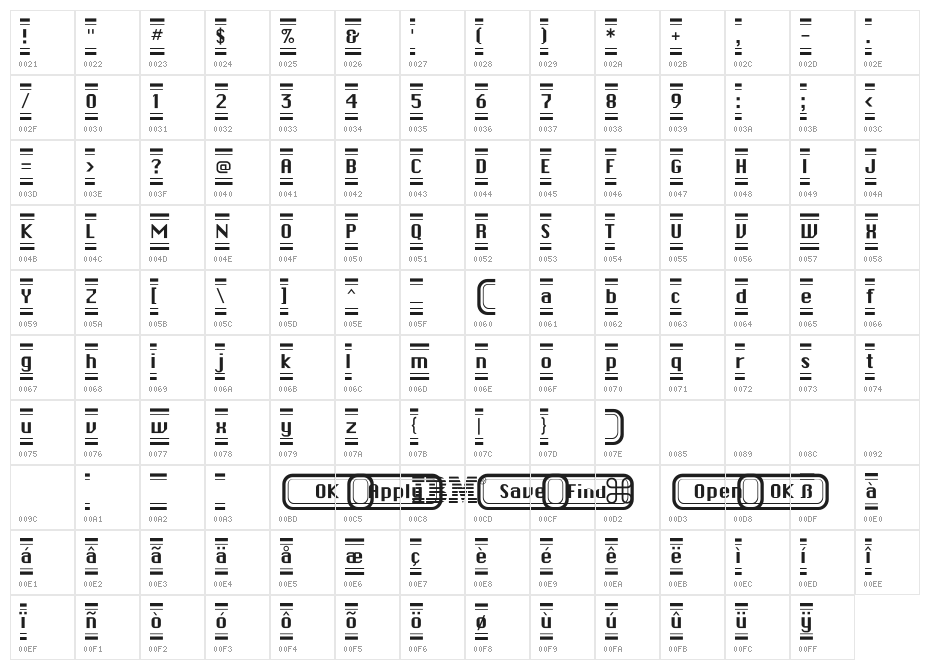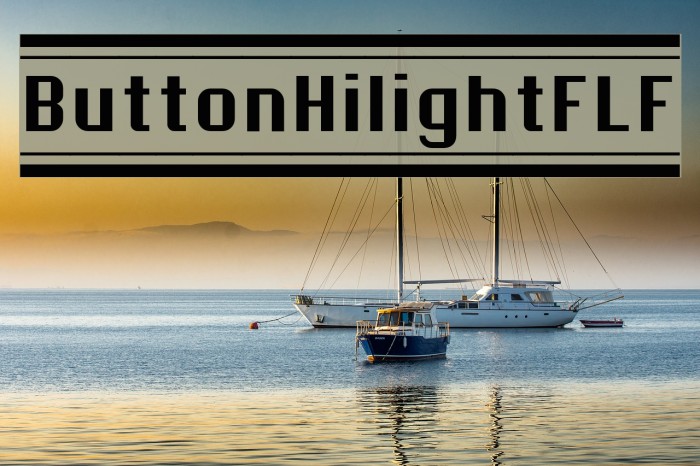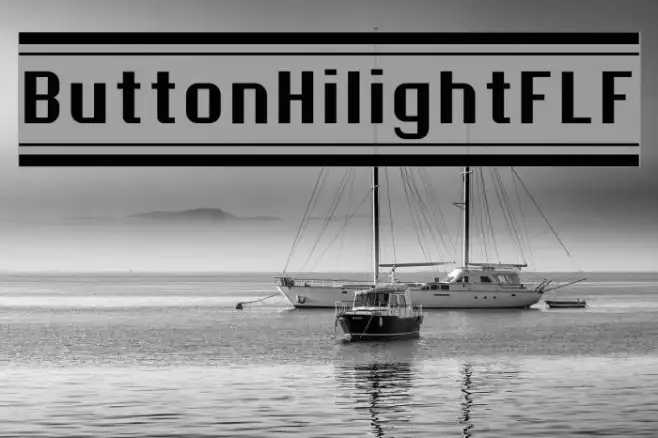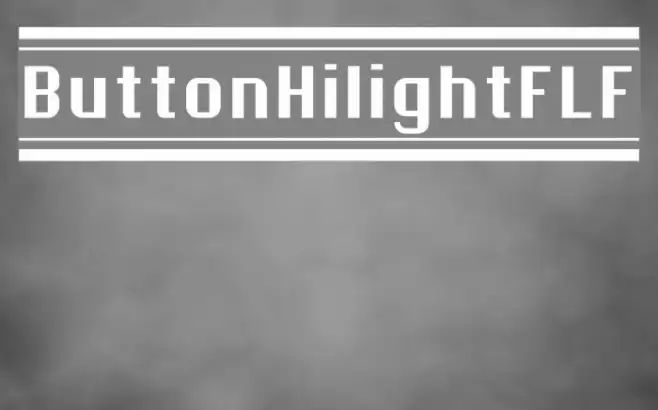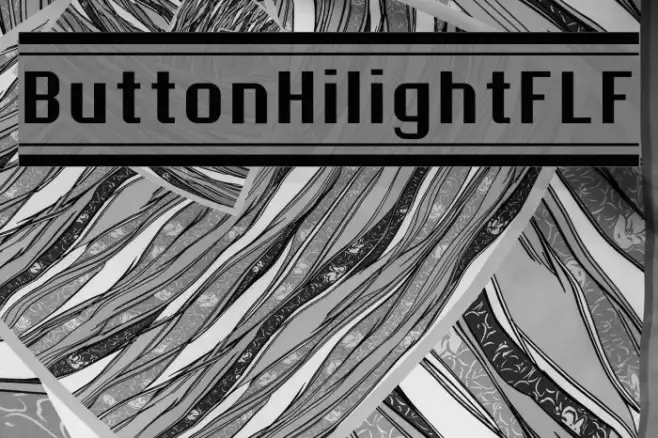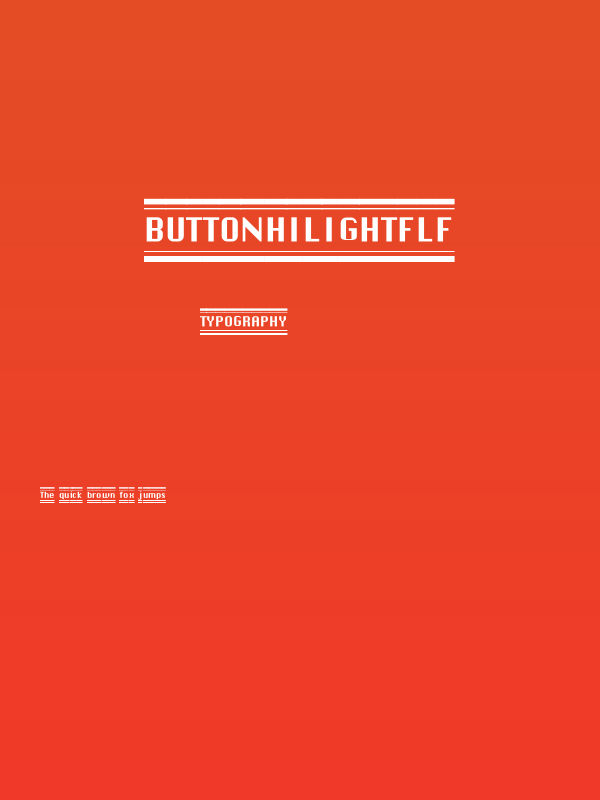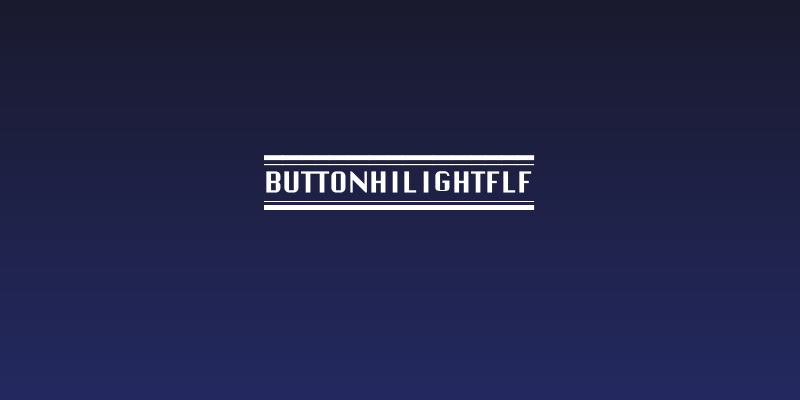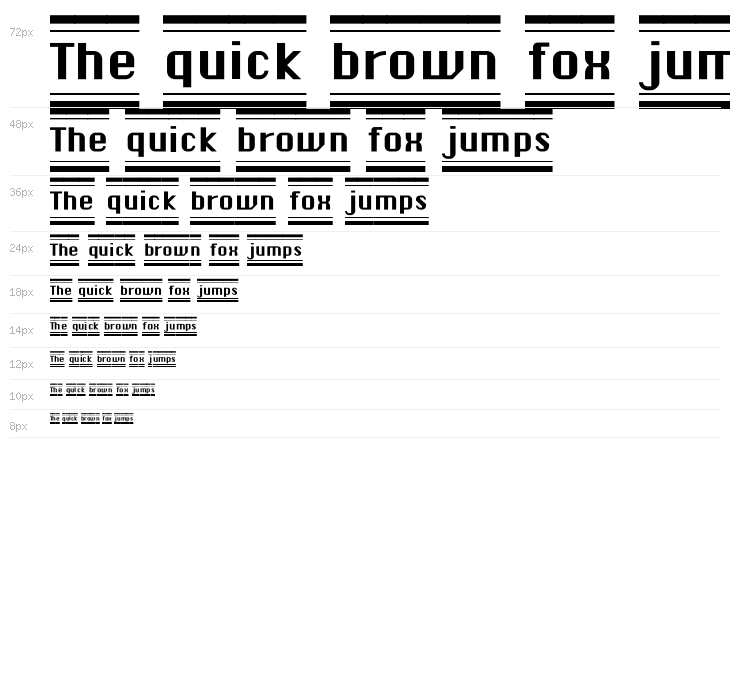
ButtonHilightFLF Font
ButtonHilightFLF Description
This font features a bold, geometric design with a strong emphasis on horizontal lines, creating a striking and modern appearance. The uppercase and lowercase letters maintain a consistent width, contributing to a uniform look. The characters are slightly condensed, enhancing the compact feel of the typeface. The numerals and special characters follow the same stylistic approach, ensuring cohesion across all elements. The font's clean lines and structured form make it suitable for contemporary design projects that require a bold statement.
| Proposed Projects | Ideal for branding, headlines, posters, and any design requiring a modern, impactful look. |